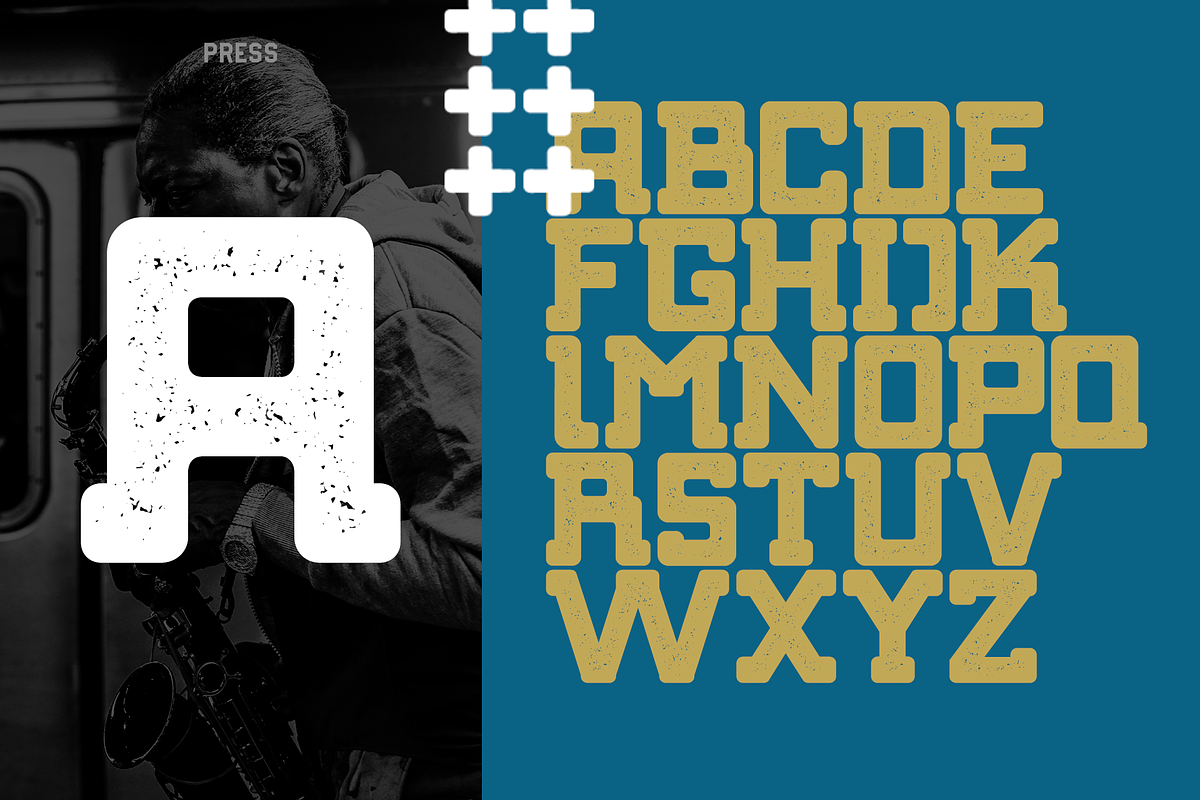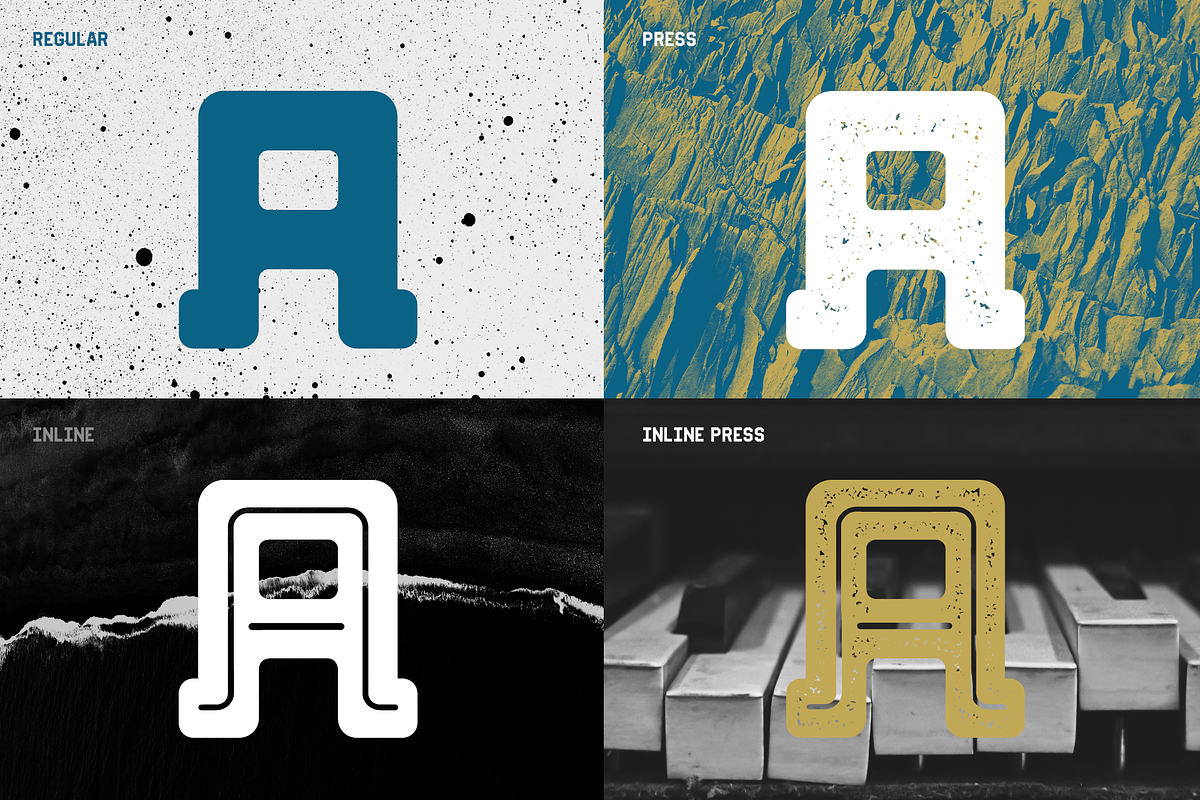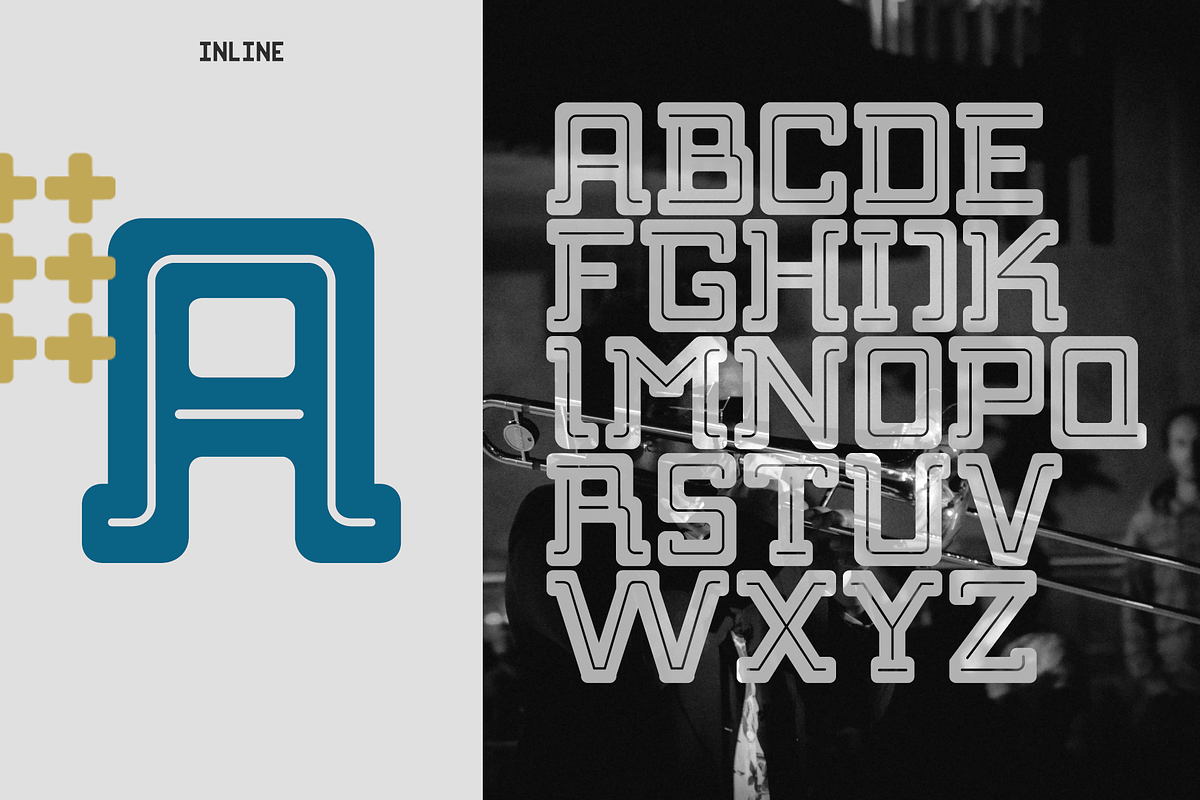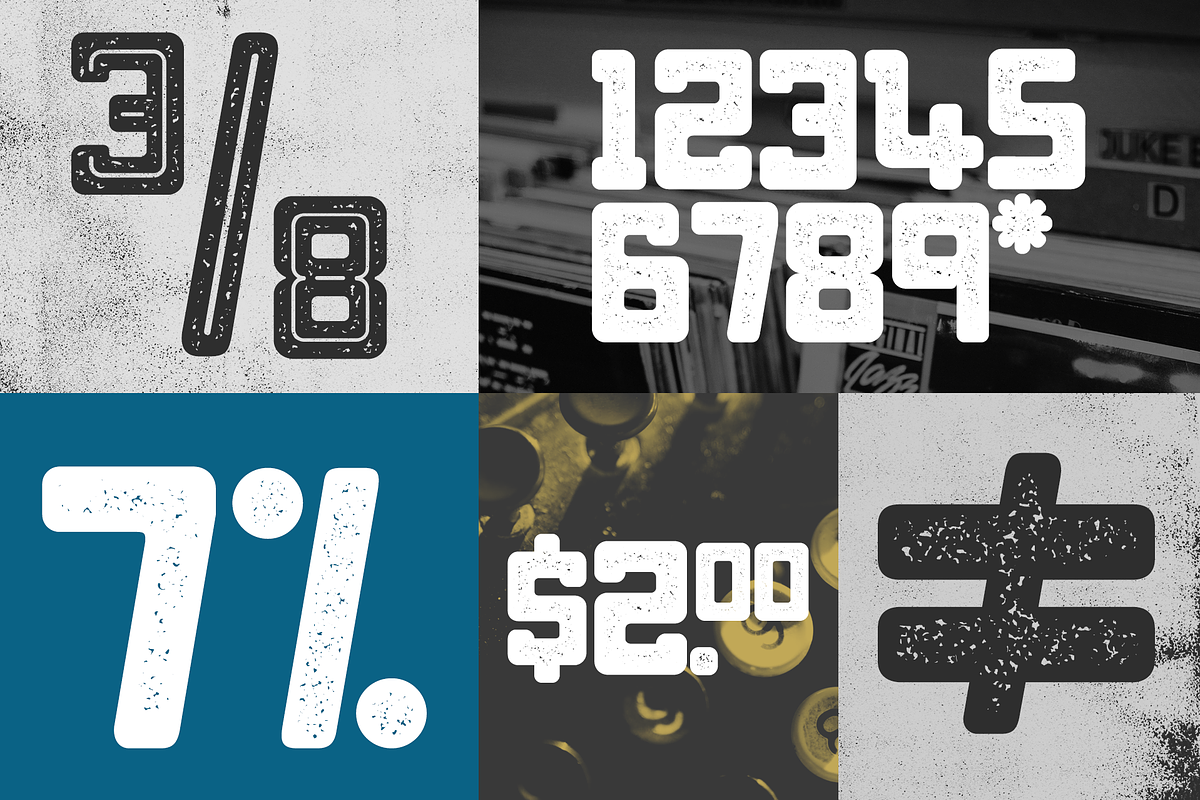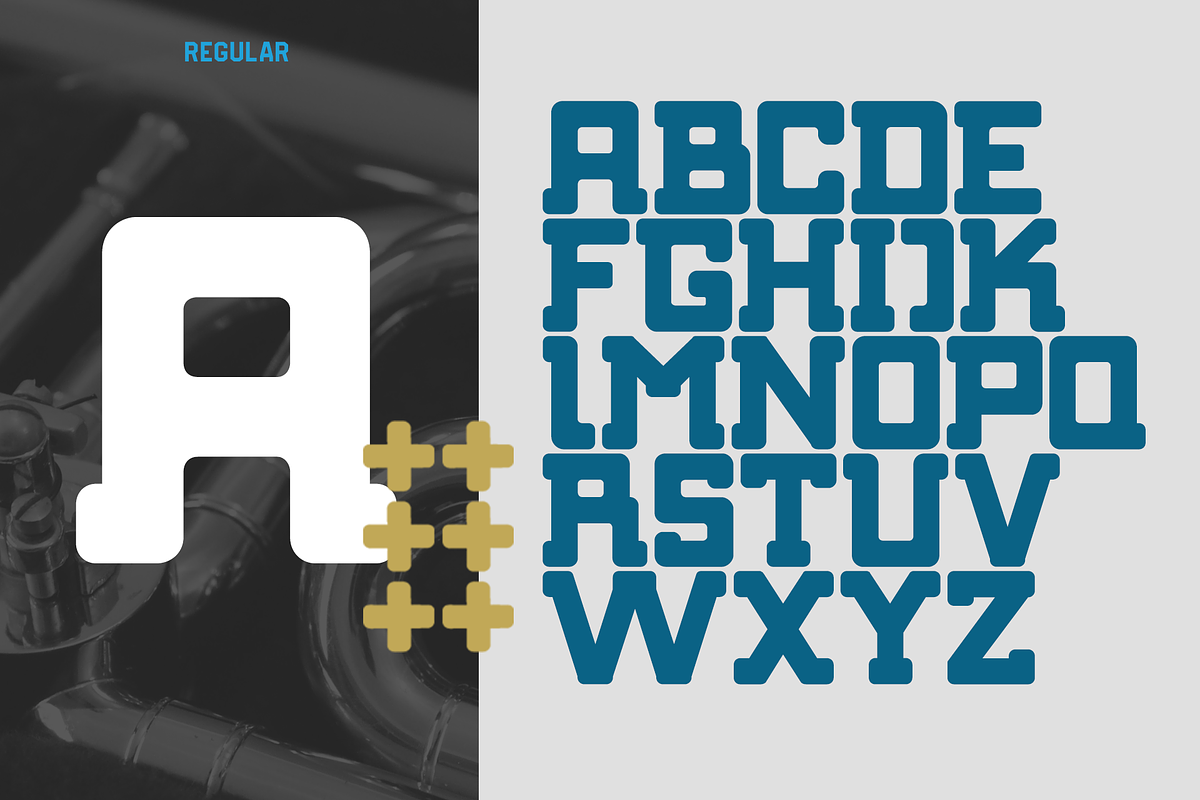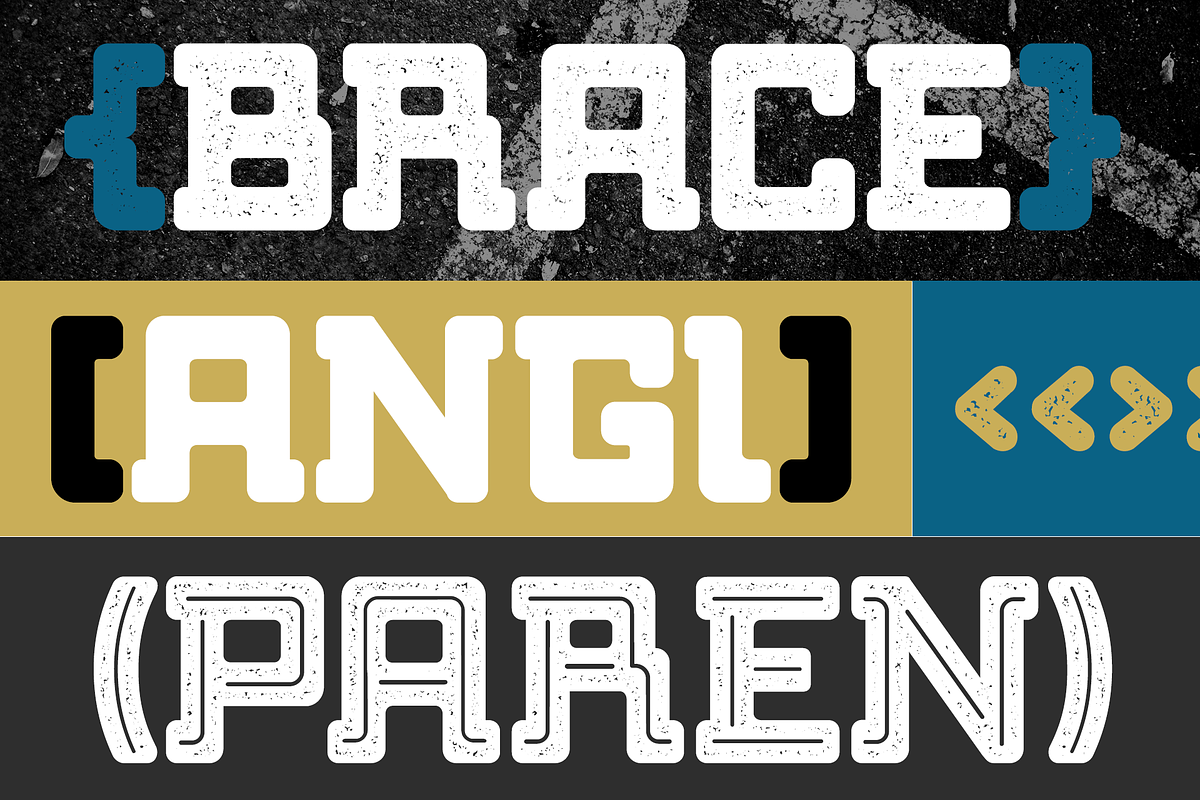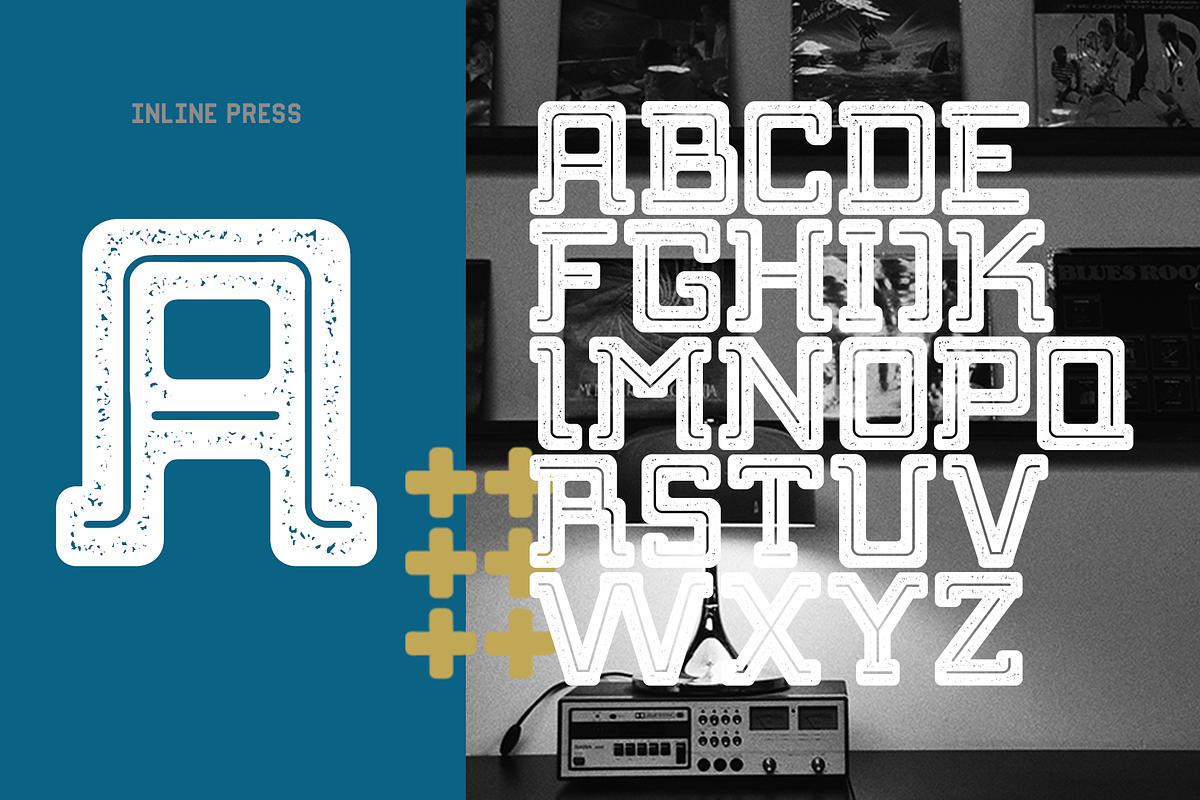
Bebop Slab Font Family
Bebop Slab Font Family by Tondi Type Studio is a font selected for branding, posters, packaging, typography.
- Bebob Slab Font Family comes in four unique styles: Regular Press Inline & Inline Press This is a 1 User Desktop License,For more bu
Why Bebop Slab Font Family is worth a look
Bebop Slab Font Family by Tondi Type Studio fits naturally into Branding, posters, packaging, typography.